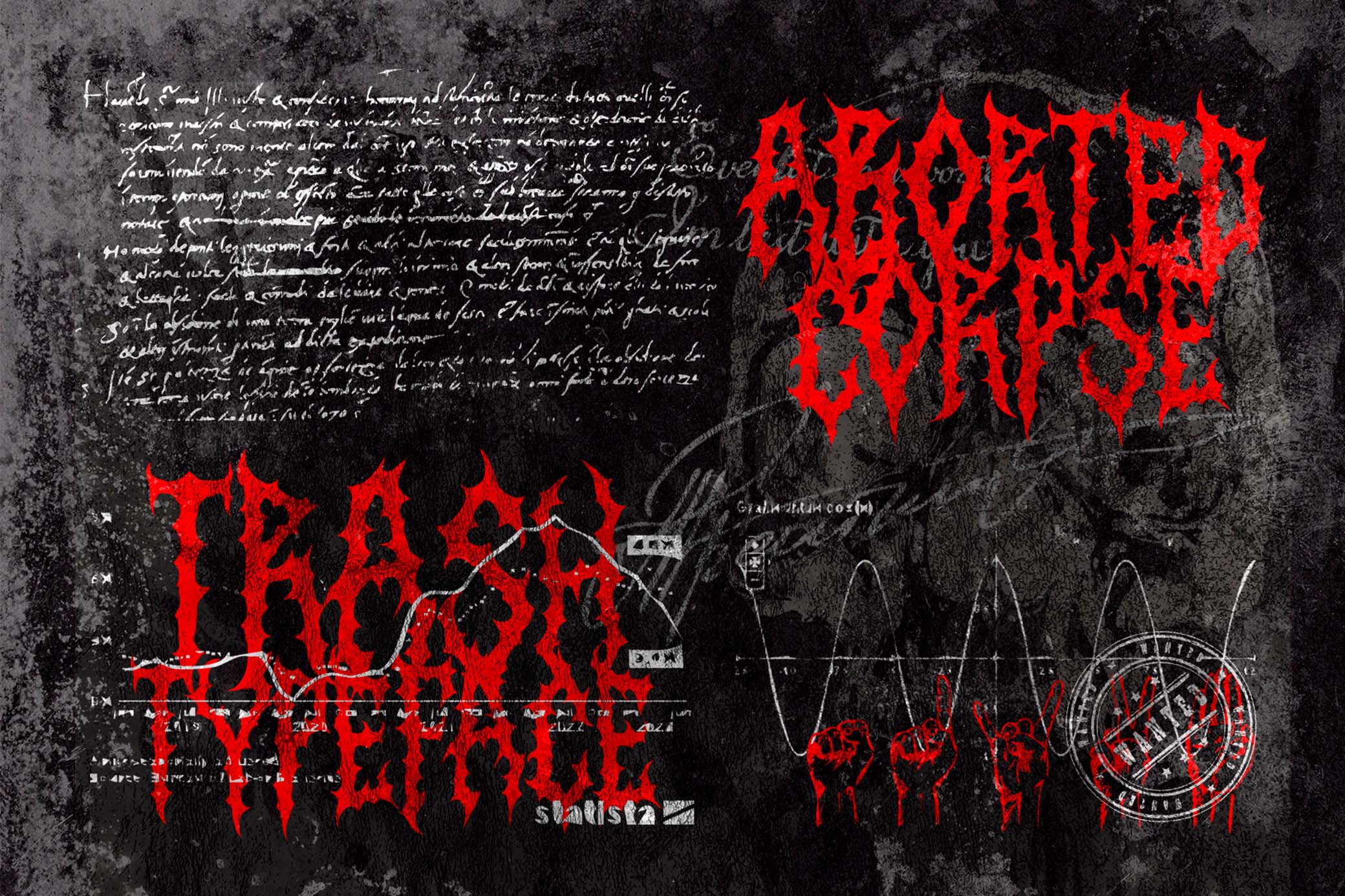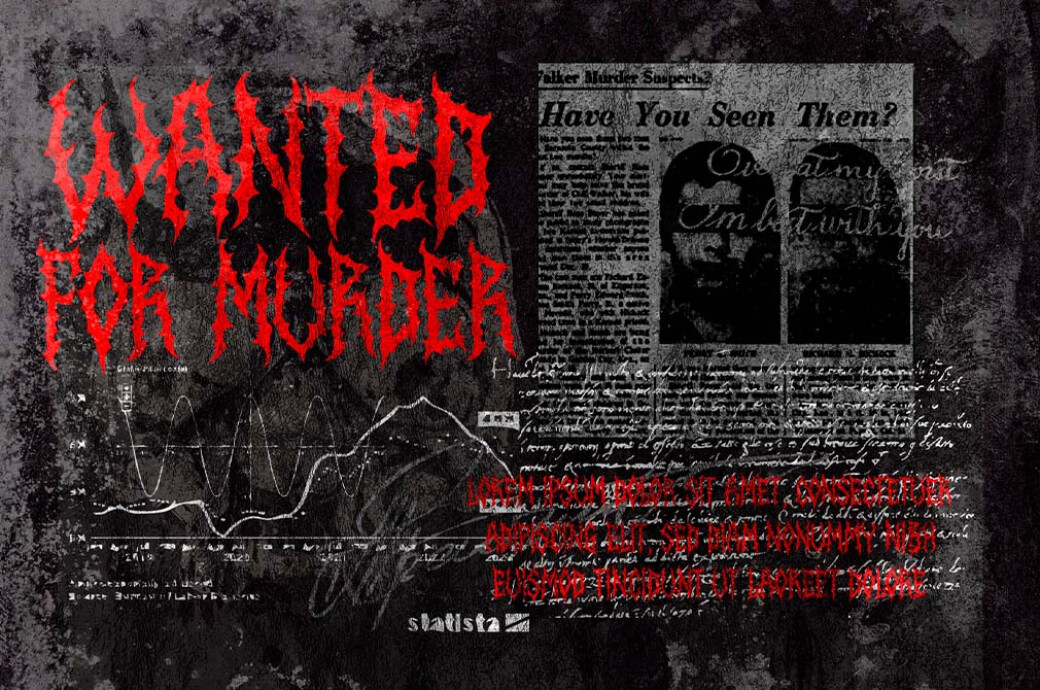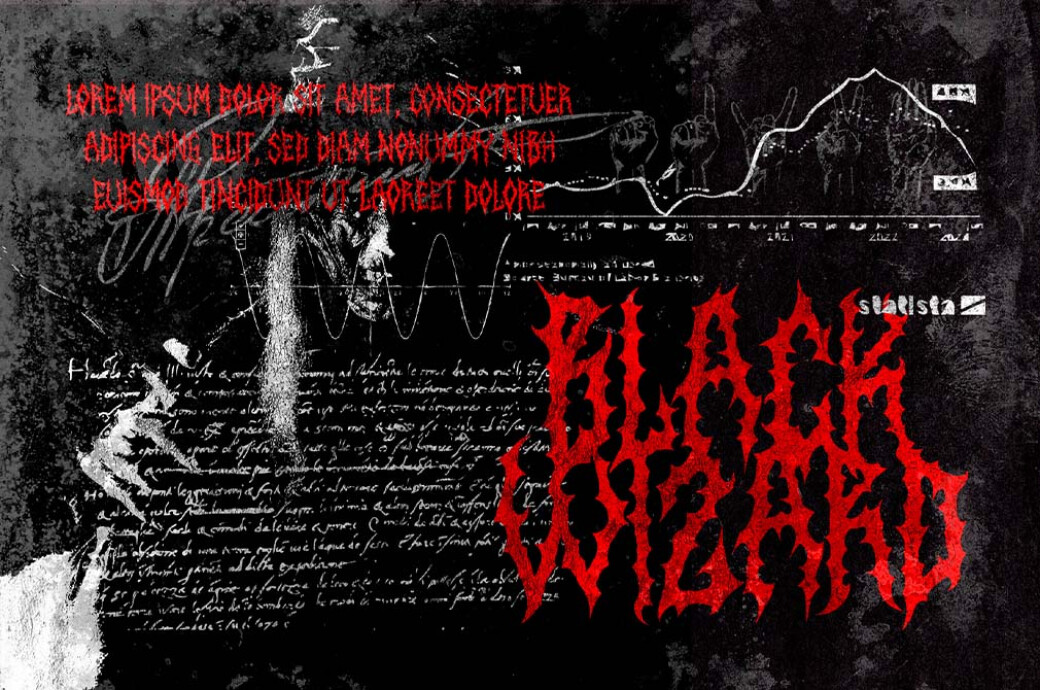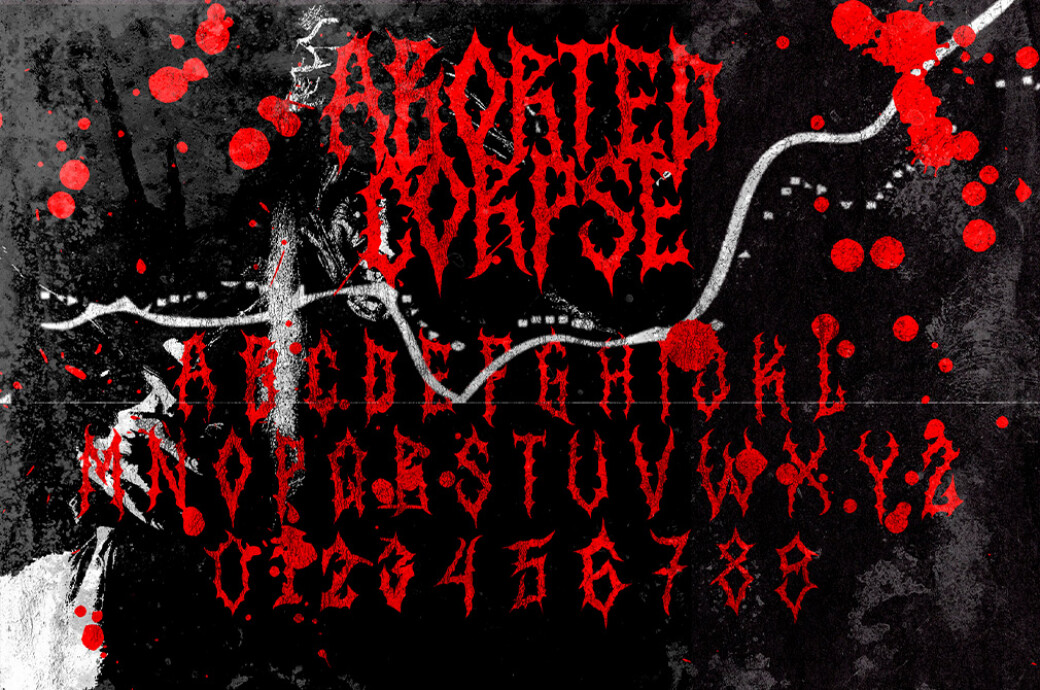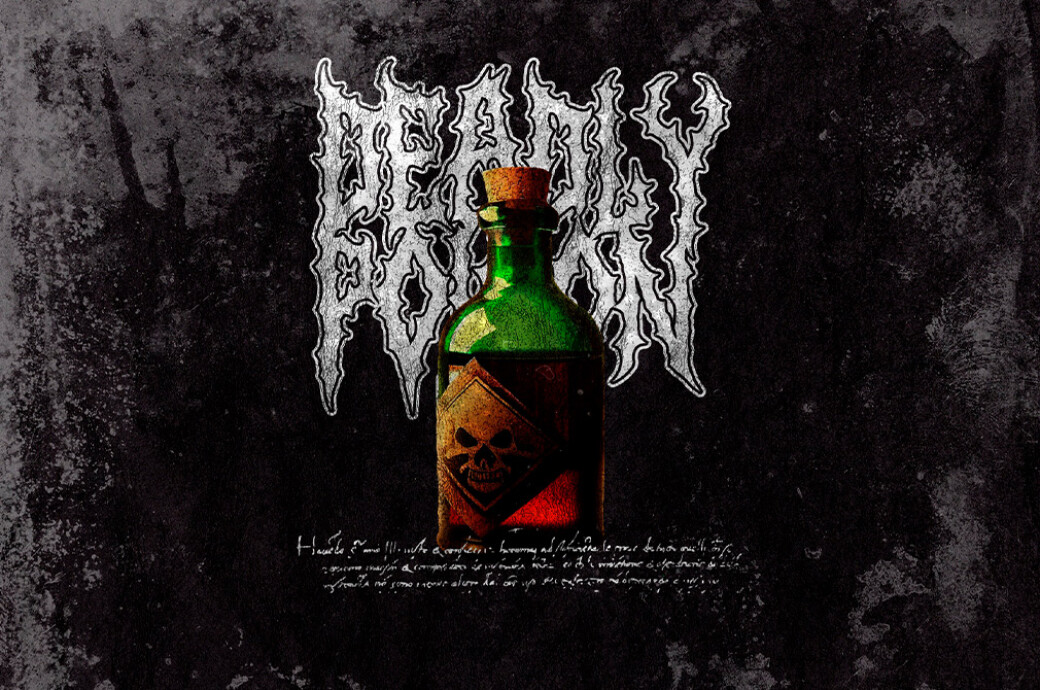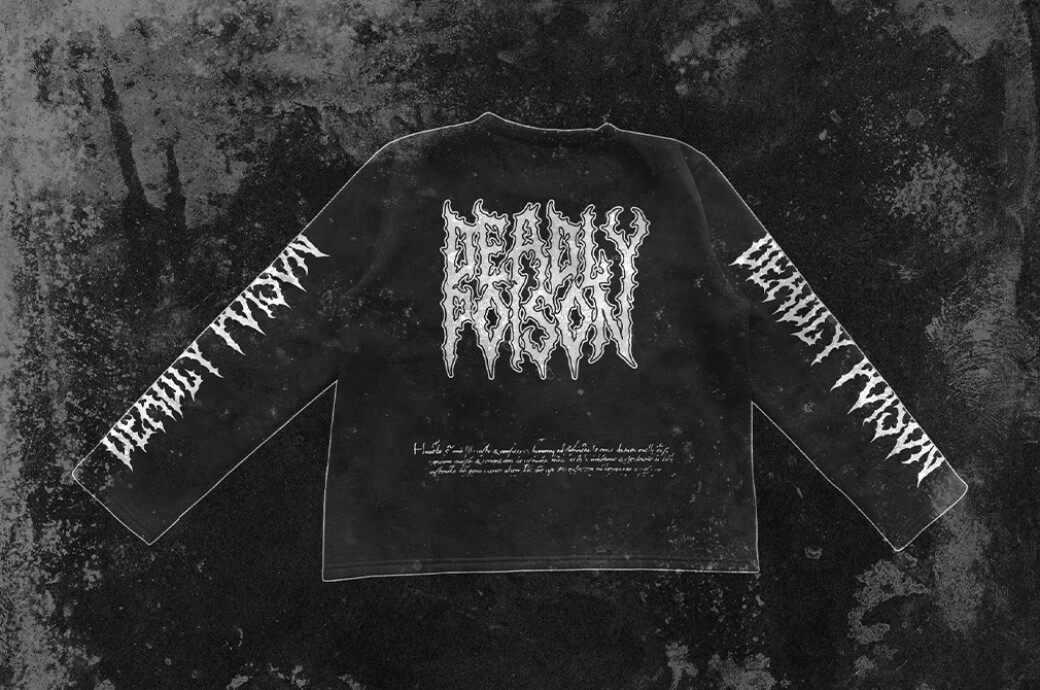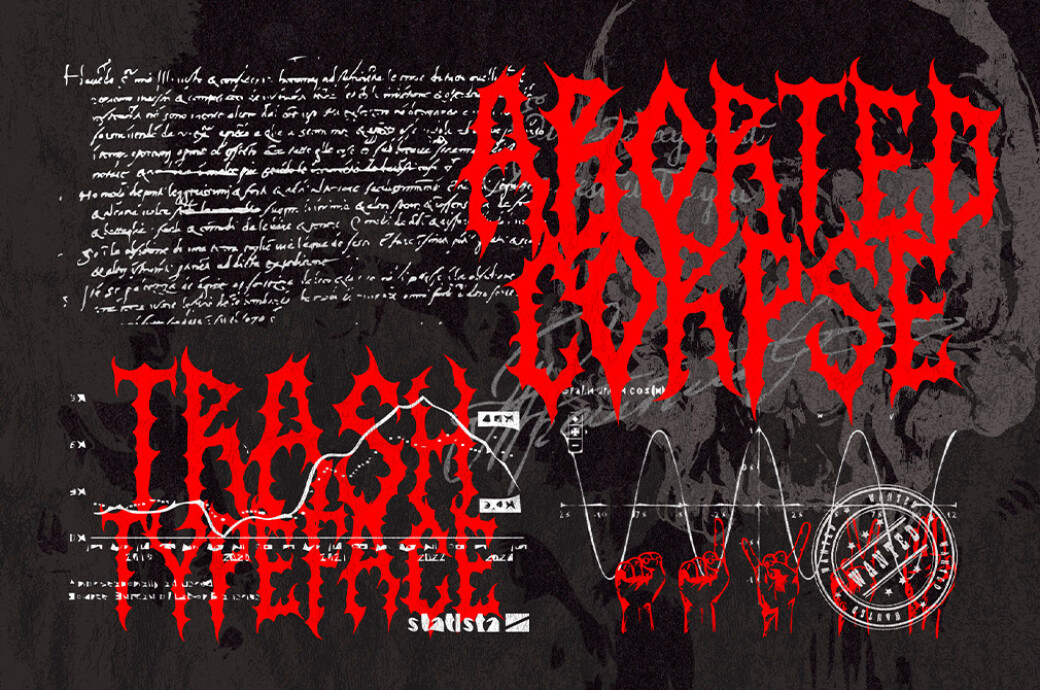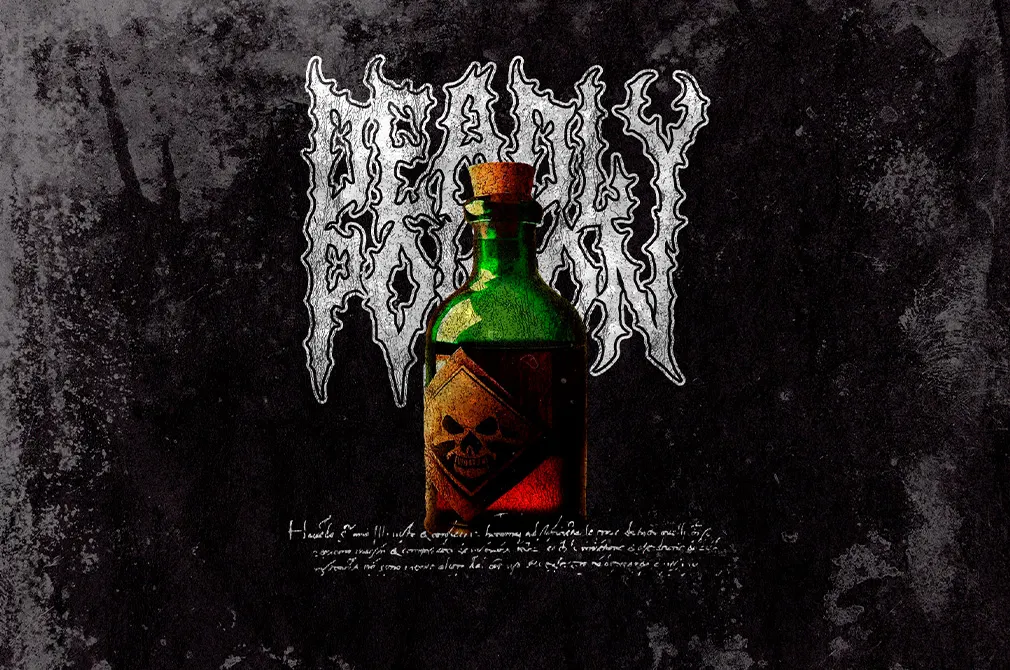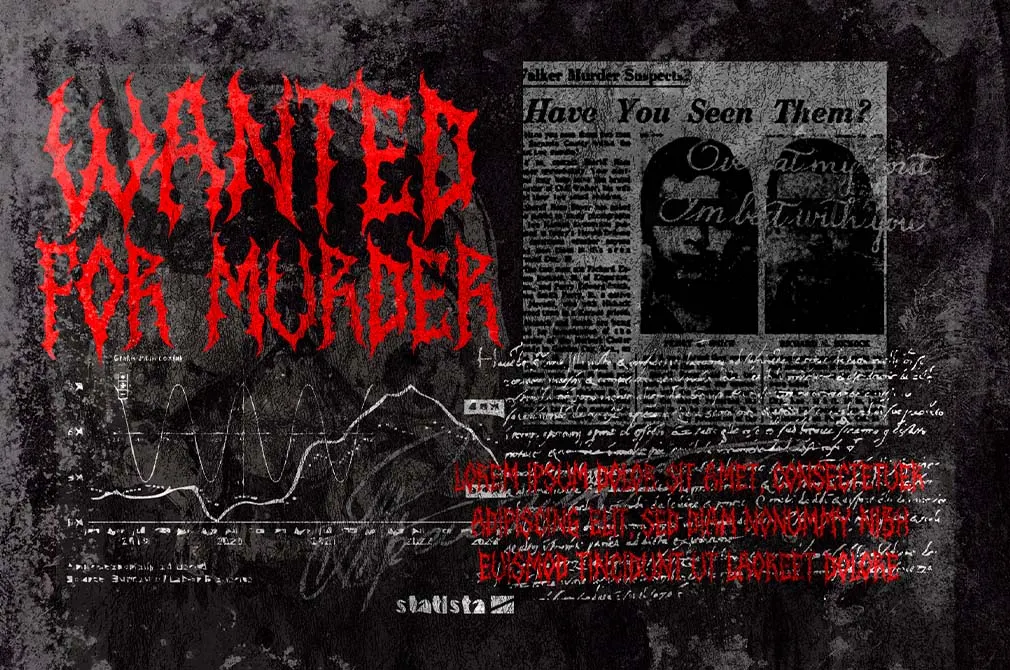
Aborted Corpse — Thrash Typeface
Aborted Corpse
Aborted Corpse delves deep into the core of metal music, drawing inspiration from the logos of thrash bands like Carnivore or Warbringer.
Like the roots that seek nourishment from the soil, your designs find their sustenance from the depths of passion and emotion with this deathly typeface. It includes uppercase letters, symbols, and punctuation. With each character, Aborted Corpse symbolizes the deep-rooted spirit that drives metal music forward.